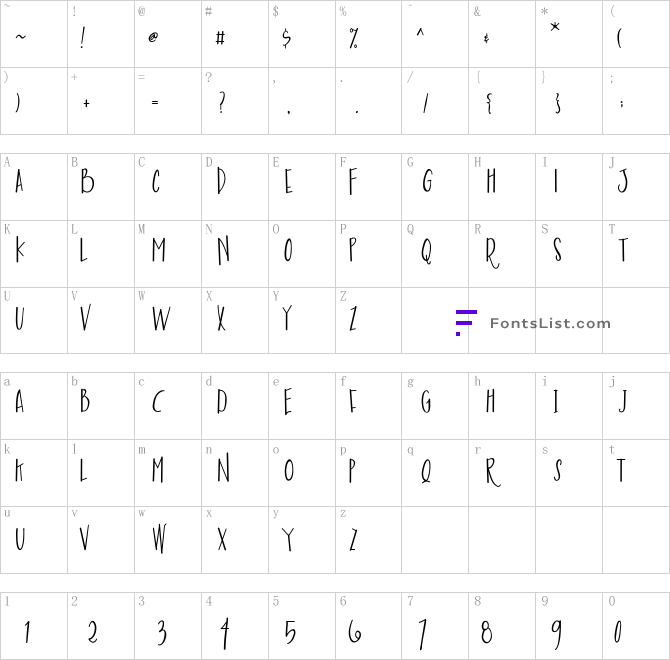
- Font Name:Austie Bost Envelopes Print
Austie-Bost-Envelopes-Print.ttf is a very beautiful artistic font, Austie-Bost-Envelopes-Print.ttf is widely used in the design and printing of various books and pictures,Austie-Bost-Envelopes-Print.ttf has a strong visual impact,Austie-Bost-Envelopes-Print.ttf is a commonly used font in newspapers, magazines and books, and is used in posters, e-commerce Poster design, store design, logo design, font design and other fields.Austie-Bost-Envelopes-Print.